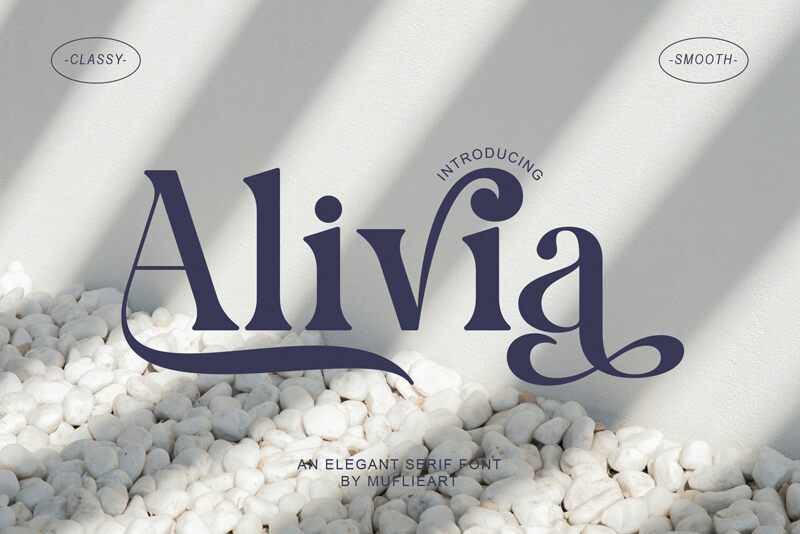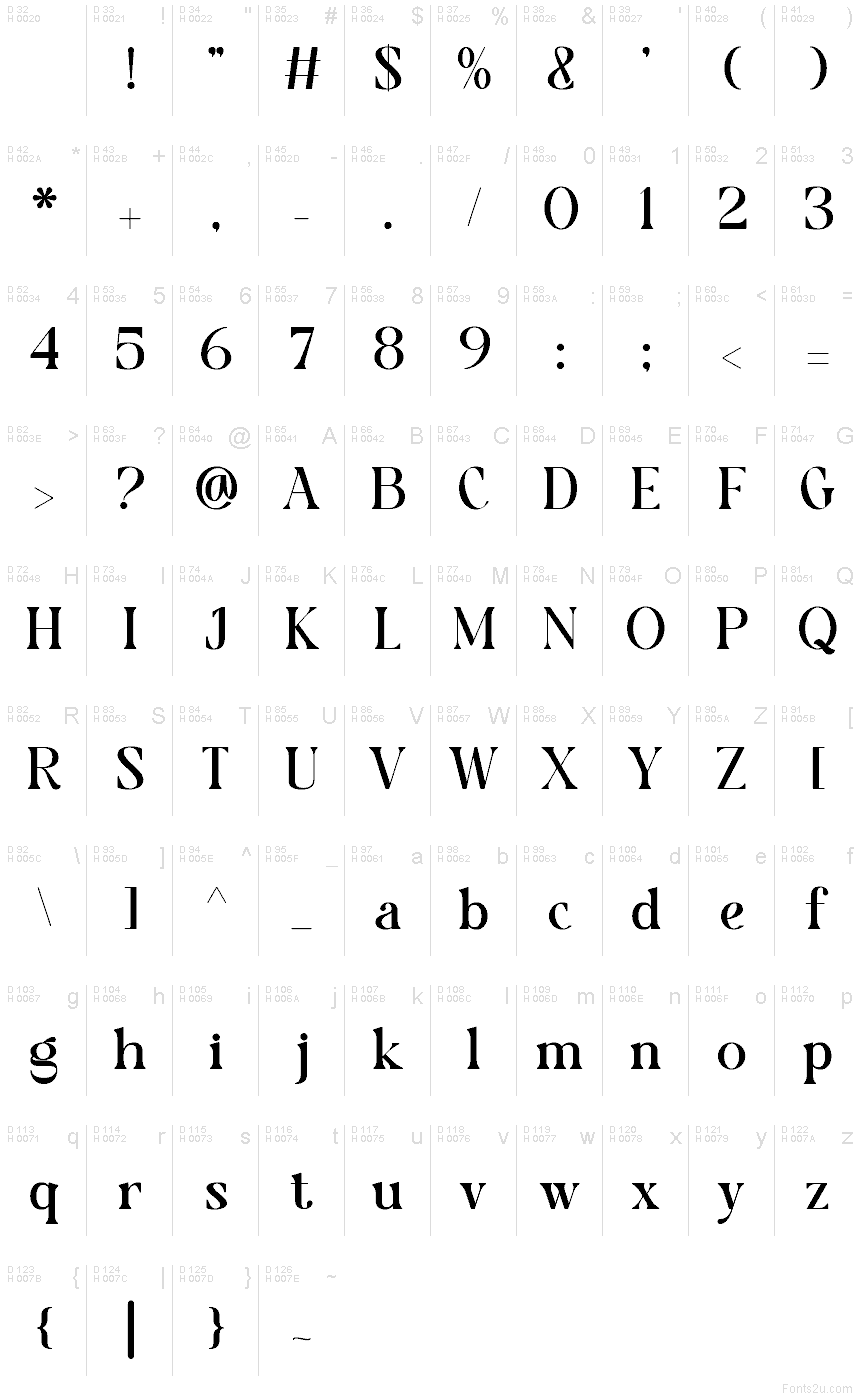
Alivia
Alivia font by Muflieart is a free serif typeface. It carries sharp, knife-edge wedges and smooth, inky curves that feel sculpted rather than drawn, giving words a couture snap. The rhythm is confident—broad verticals, taut thins, and generous bowls—so headlines read with a glossy, editorial sheen without turning fussy.
Using Alivia, you can anchor fashion branding, beauty packaging, magazine mastheads, boutique logos, event invitations, and hero headlines with a luxe, modern voice. This free font loves big sizes and a whisper of tracking for air. Pair it with a clean, understated sans for body copy to let Alivia’s polished contrast and crisp cuts do the talking.